Where to Download Free Fonts Aesthetic Safely in 2026
In the evolving world of digital design, typography remains the most powerful tool for creating a brand’s visual identity. Whether you are designing a sleek portfolio, a social media kit, or a professional website, the ability to download free fonts that are both high-quality and secure is essential.
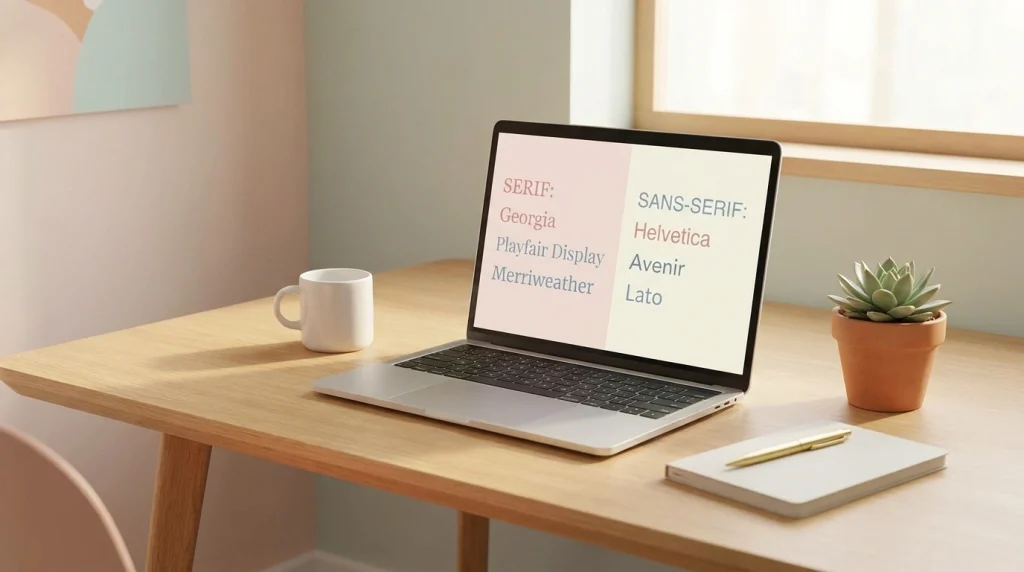
However, as we move through 2026, the risks of malware and complicated licensing agreements have made “free” a word that requires caution. To help you navigate the vast sea of typefaces, this guide highlights the most trusted platforms and expert practices for securing the best aesthetic fonts without compromising your system’s safety or your legal standing.
Why Safety and Licensing Matter in 2026
Downloading a font isn’t just about clicking a button; it’s about ensuring the file you receive is clean and the rights you have are clear. In 2026, cybersecurity threats often hide within compressed ZIP files on unverified “freebie” sites. Furthermore, with the rise of strict digital copyright enforcement, using a “personal use only” font for a commercial project can lead to expensive legal headaches.
When you look to download free fonts, you must prioritize sites that offer transparency regarding the designer’s intent and the file’s integrity.
Top 5 Trusted Platforms for Free Aesthetic Fonts
1. Google Fonts (The Gold Standard)
Google Fonts remains the most reliable resource for web-safe, open-source typography. In 2026, it has expanded its library to include more “variable fonts,” which allow you to adjust weight and width dynamically. Since every font aesthetics here is licensed under the Open Font License (OFL), you can use them for commercial projects with zero stress.
2. Font Squirrel (Hand-Picked Quality)
Font Squirrel is famous for its “100% Free for Commercial Use” policy. Their team manually reviews fonts, ensuring they aren’t just aesthetic but also technically sound and safe from a security perspective.
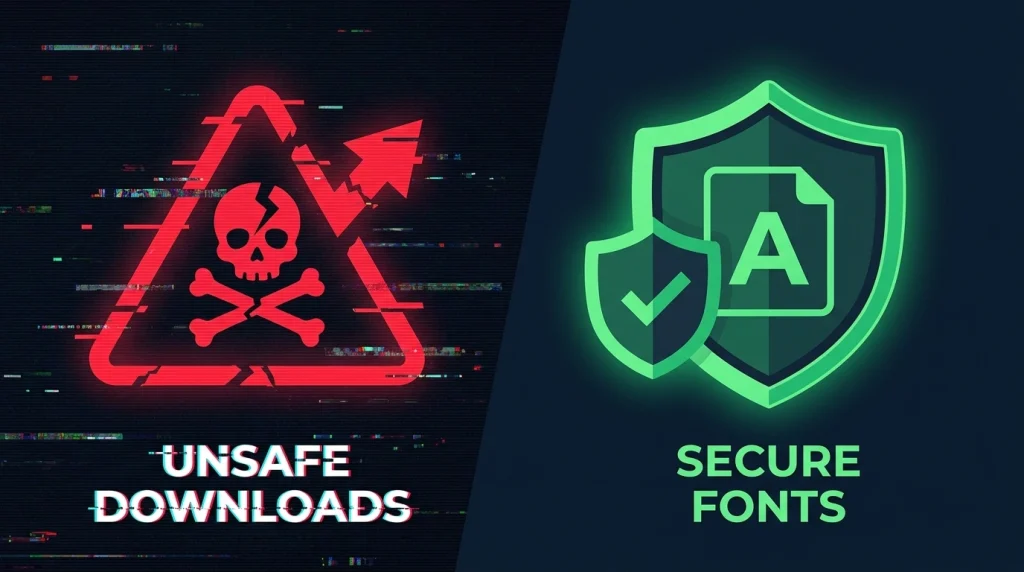
3. Behance and Dribbble (Designer Direct)
If you are looking for cutting-edge, trendy aesthetics like “Neo-Grotesque” or “Y2K Retro,” following independent designers on Behance is the way to go. Many creators offer “Lite” versions of their premium fonts for free.
4. DaFont (The Massive Archive)
DaFont is a classic, but it requires a bit of filter-work. It is an excellent place for niche aesthetics—curly, gothic, or handwritten styles. To stay safe, only download fonts with high download counts and positive user ratings.
5. Pixelo and DealFuel
These platforms often curate “bundles” of aesthetic fonts. They are particularly useful for finding high-end serif and script fonts that usually carry a price tag but are offered for free during limited-time promotions.
How to Verify a Safe Font Download
Even on reputable sites, follow these three “E-E-A-T” (Expertise, Authoritativeness, and Trustworthiness) steps before installing a new typeface:
Aesthetic Trends to Watch in 2026
This year, the trend is moving away from sterile minimalism toward “Expressive Typography.” We are seeing a surge in:
- Organic Serifs: Soft, leaf-like curves that feel human.
- Modern Monospaced: Coding-inspired fonts for high-end fashion.
- Maximalist Display: Bold, distorted letters that act as art.
Final Thoughts
The ability to download free fonts gives creators incredible freedom, but it comes with the responsibility of due diligence. By sticking to established platforms, you can build a stunning font library that is both beautiful and safe.